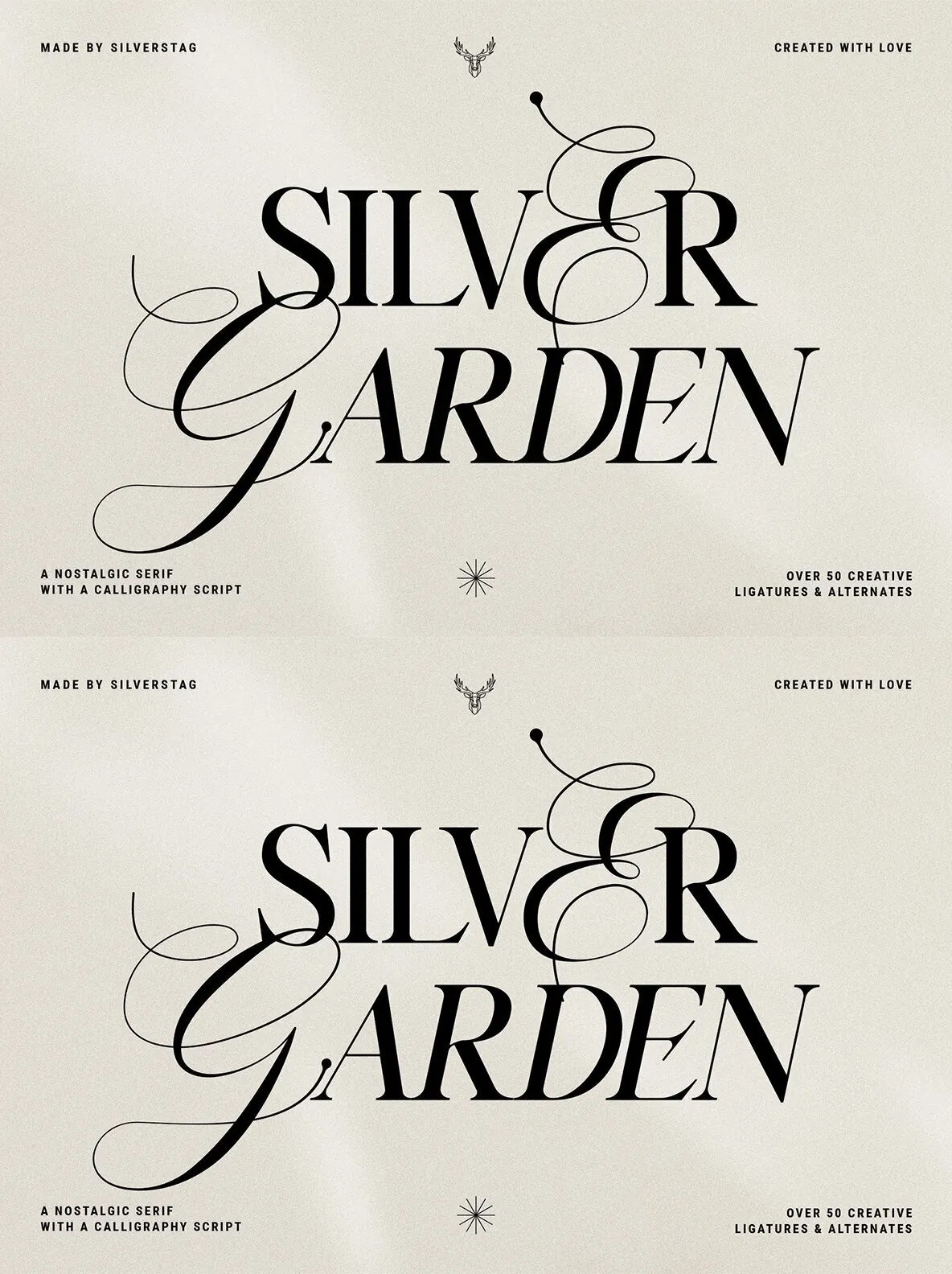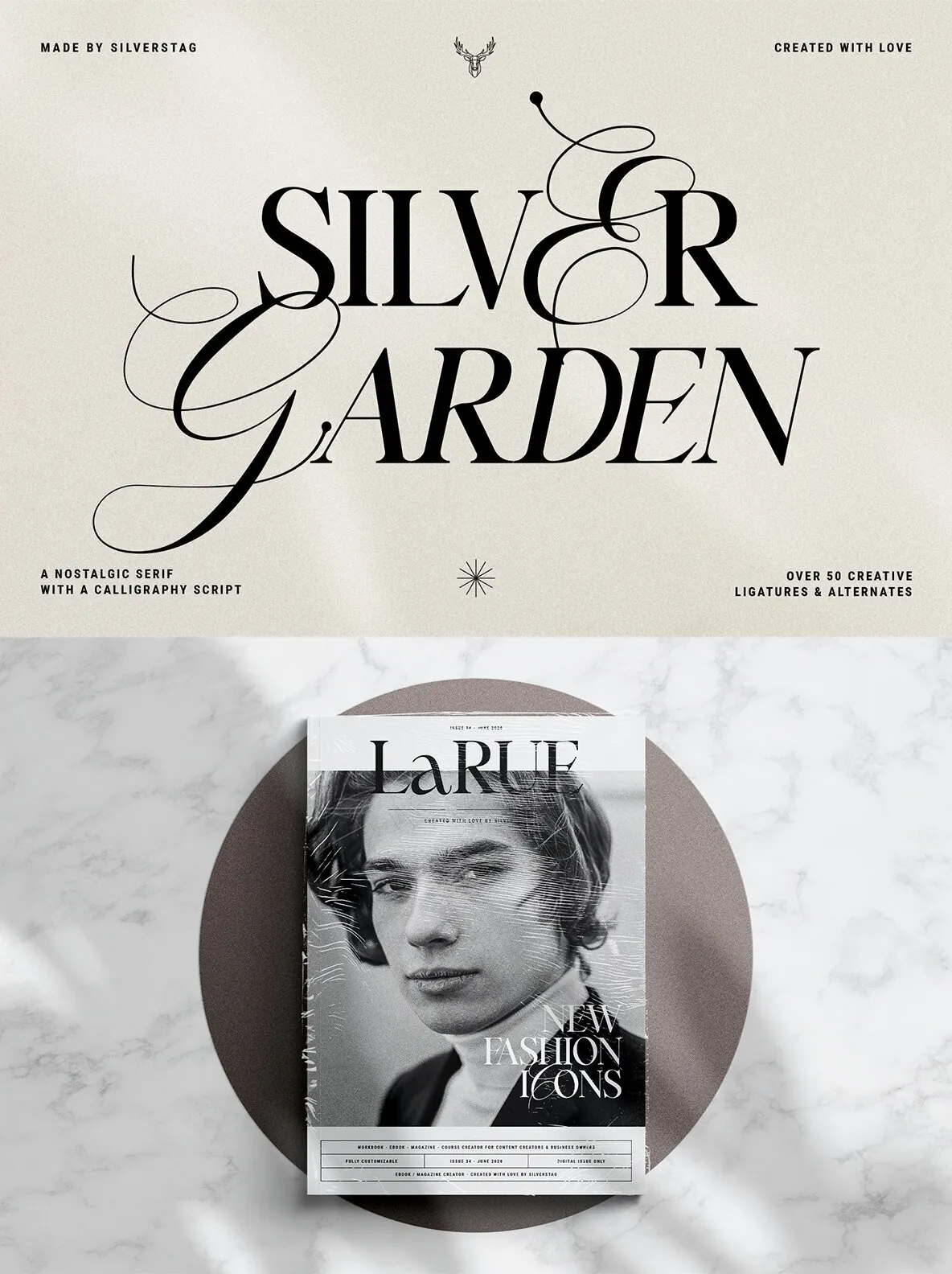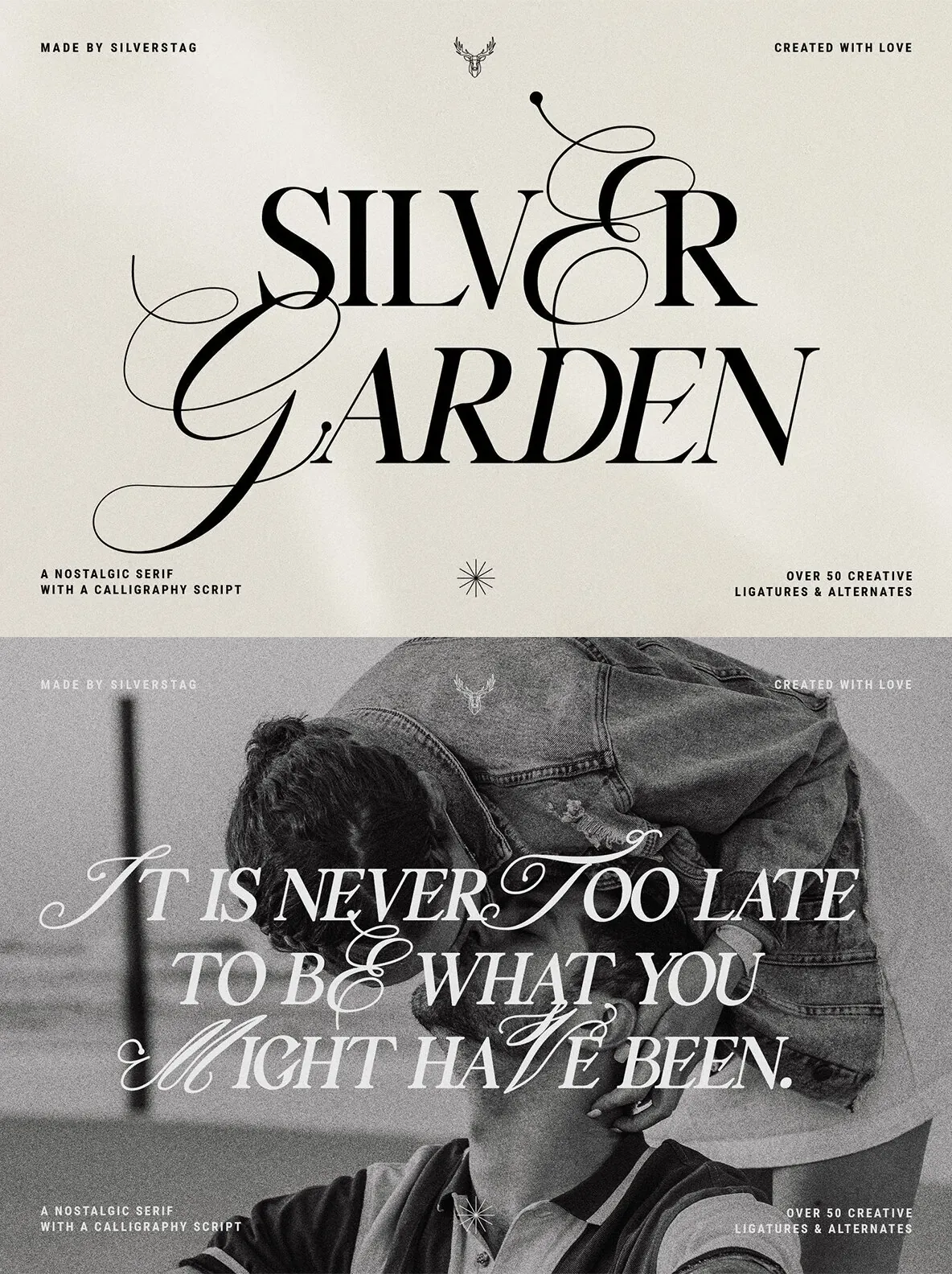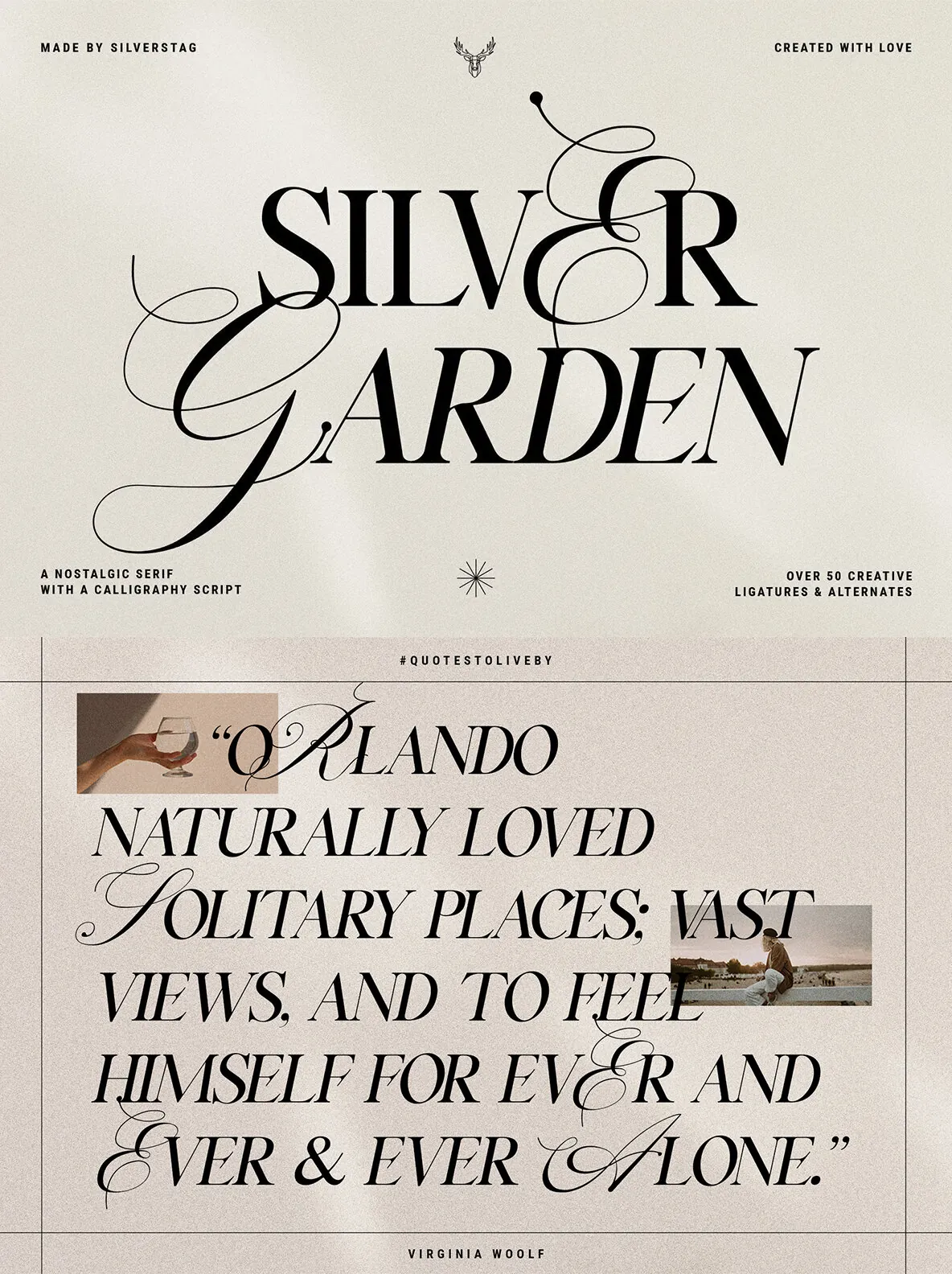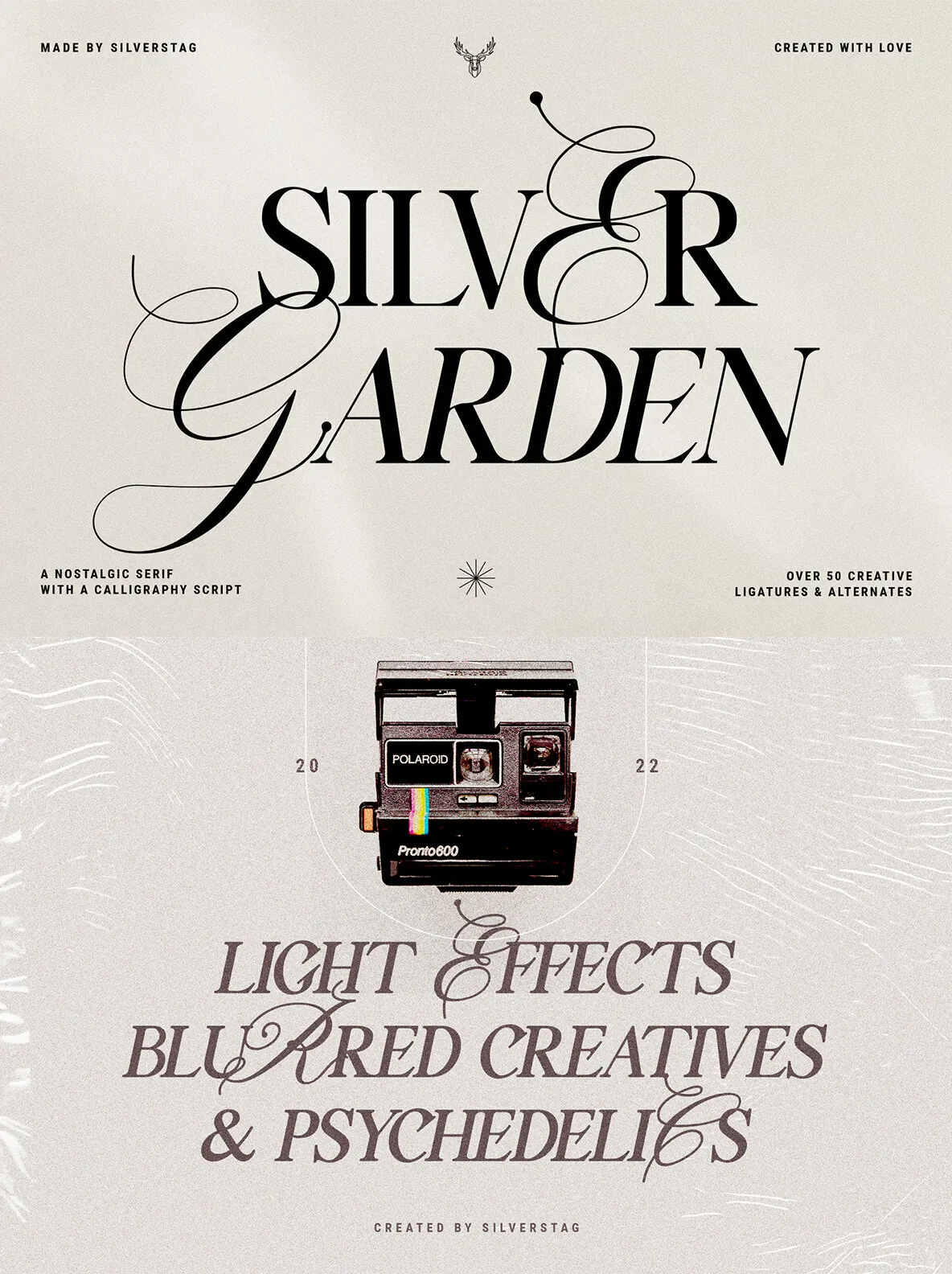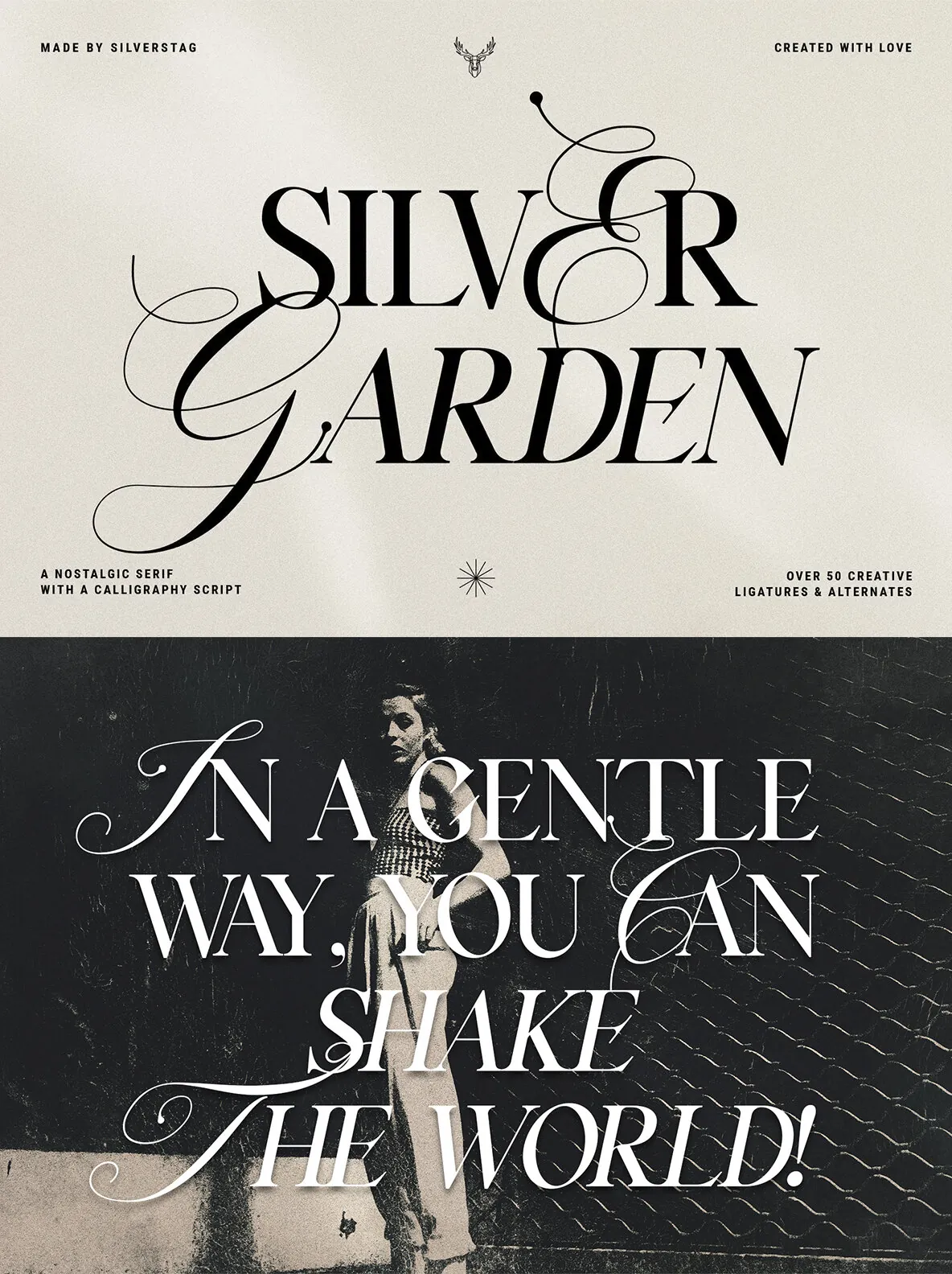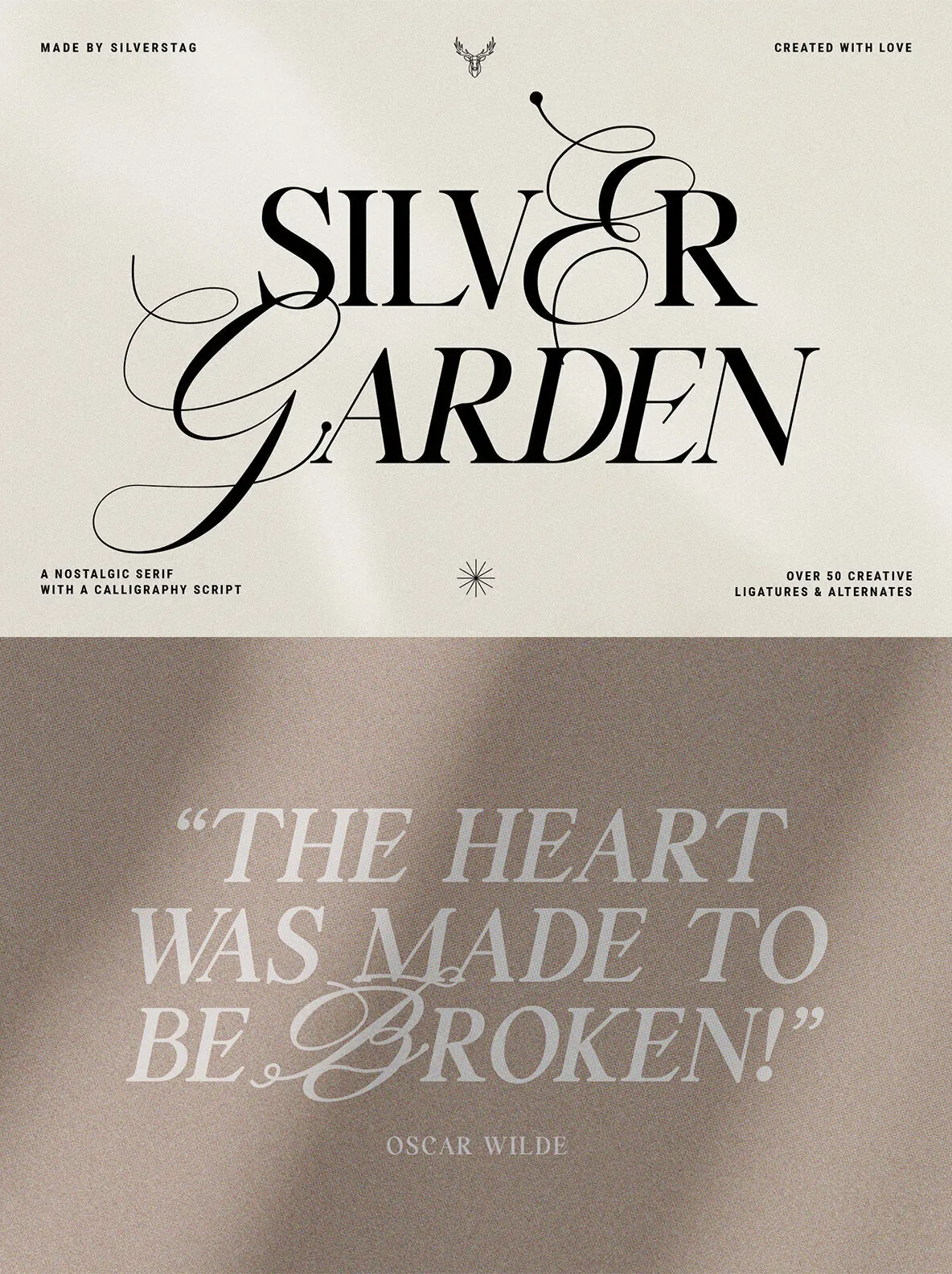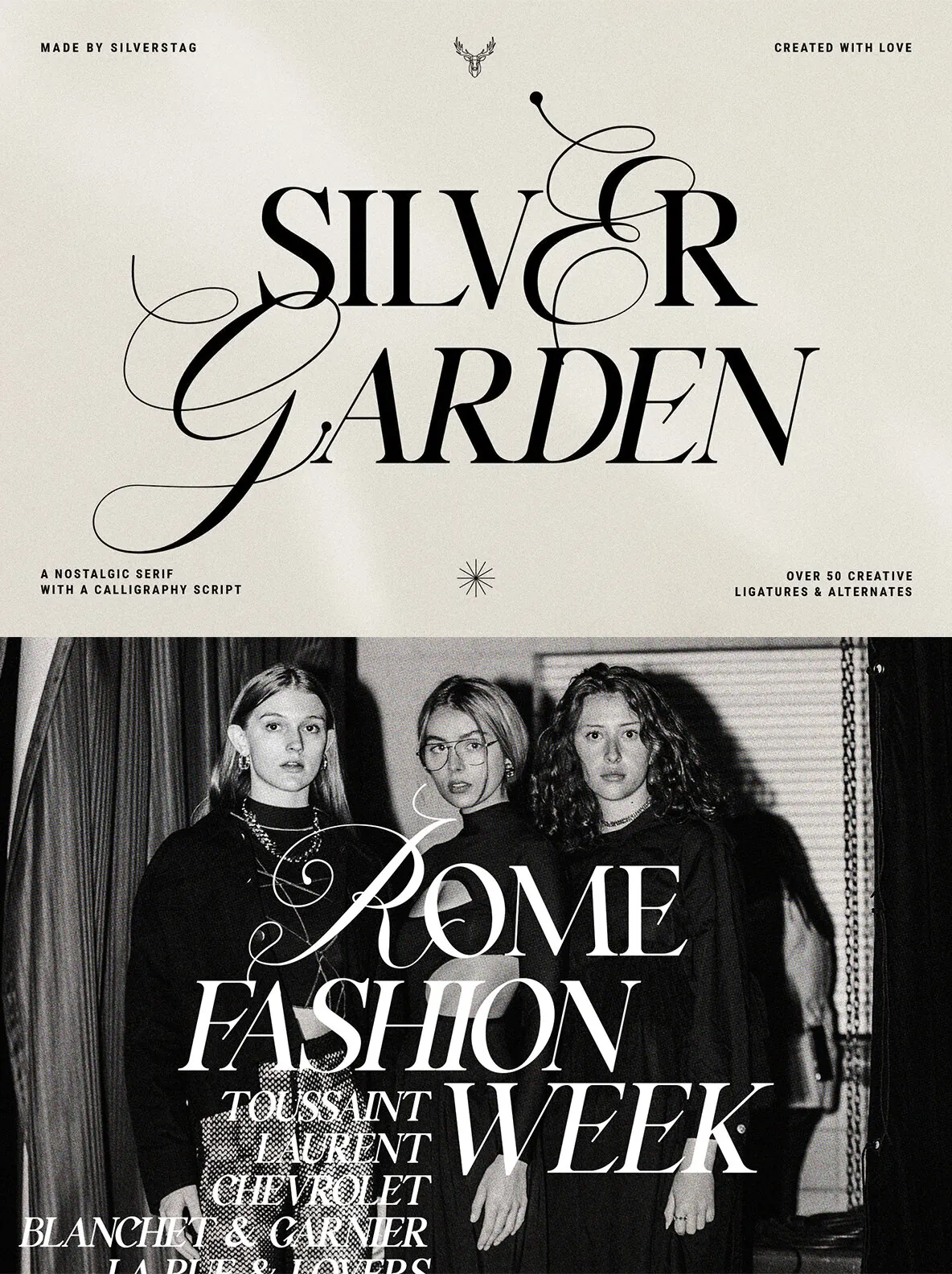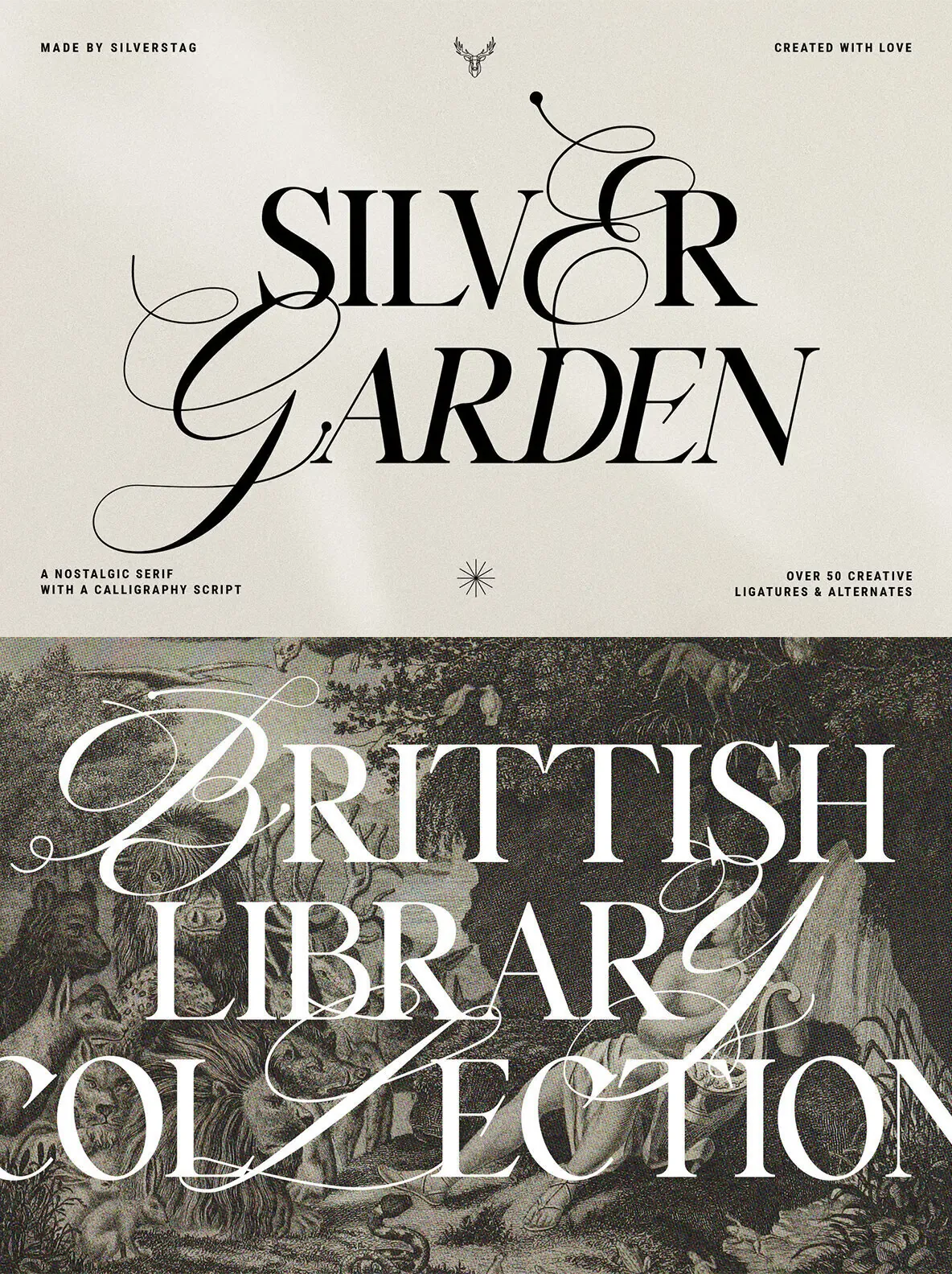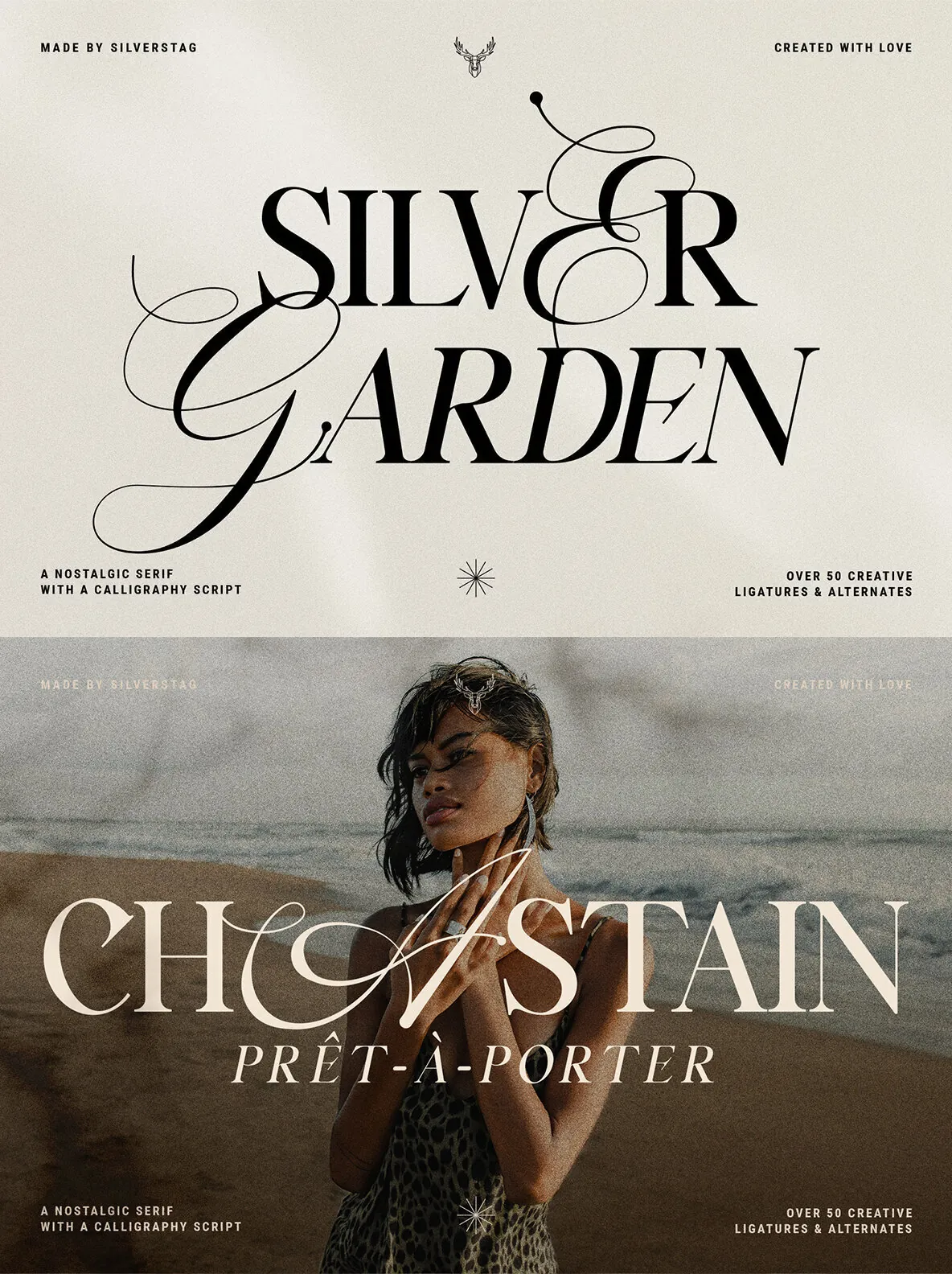
Silver Garden — Nostalgia With a Silver Edge
Silver Garden is a unique, nostalgic typeface made to feel personal—right down to the “Silver” in its name. The family includes 4 font options: regular, italic, bold, and bold italic. At its core, Silver Garden is a serif. In regular and italic, it reads cool, chic, and fashionably elegant. In bold and bold italic, it gains extra curves, bringing a stronger vintage note while staying refined.
Each font version comes with over 25 lowercase ligatures and a full set of uppercase script alternates. You also get full language support, punctuation, and numerals, plus detailed instructions on using alternate letters in most apps on your computer, as well as in Canva. Review the preview images to see how Silver Garden fits branding, editorial work, packaging, and other design projects. If you publish on Instagram, tag @silverstagco to be considered for a feature.
Each of these fonts includes all serif letters & uppercase alternate script options